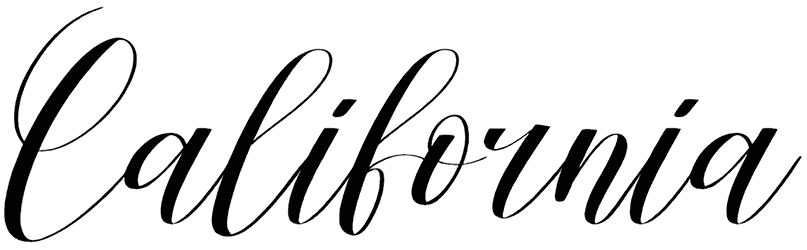
California Font
If you are in the middle of a critical project and there is no room for making any mistakes, then you should definitely take the best possible outcome out of a cursive script font such as California.
Since this calligraphy font comes with a soft and rounded style, it looks insanely suitable for social media posts, product packaging, magazines, gift cards, or wedding invitations. This masterpiece shares a sense of sturdy, dynamic vitality or drama with the audience.